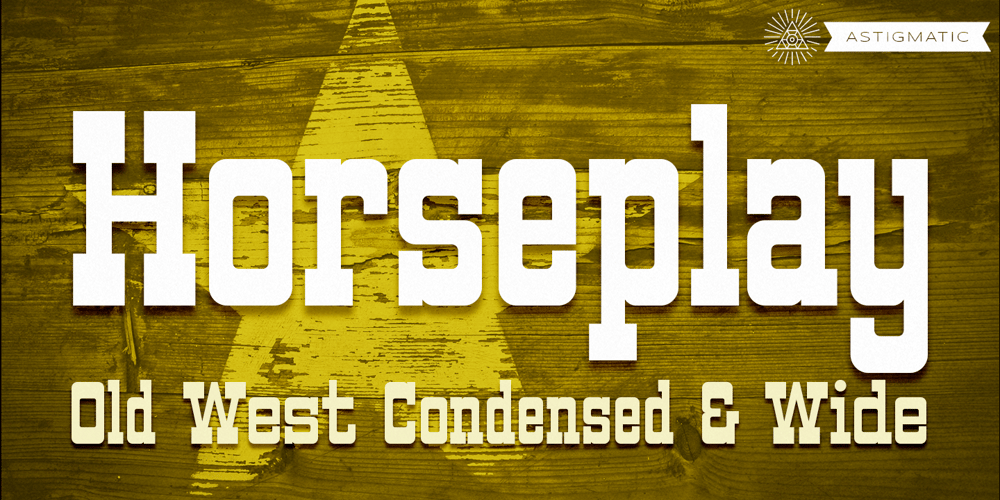
Horseplay AOE Font Family was designed by Brian J. Bonislawsky and published by Astigmatic. Horseplay AOE contains 4 styles and family package options. Inspired by the earlier signage from Binions Horseshose Hotel & Casino in Downtown Las Vegas, this font family comes in both standard and wide setups indicative to the two distinct widths displayed on the vintage style bulb & neon lettering on the casino. The earlier signage is now a relic in the Neon Sign Graveyard, but these typefaces keep them alive and well at your fingertips. The Horseplay Pro family is extended with OpenType functionality including unlimited fractions, tabular and proportional figures, smallcaps and related smallcaps fractions and figures, all with an extended language character set. Buckle up and hold on, because this bronco bucks!